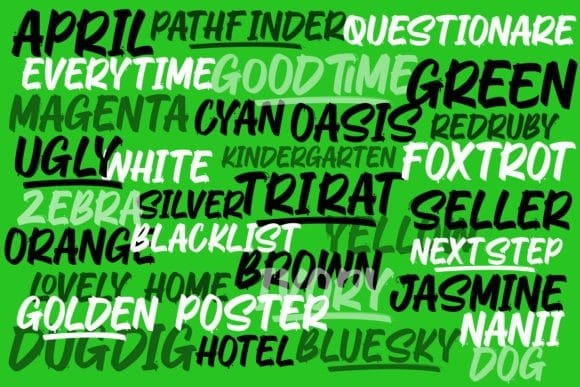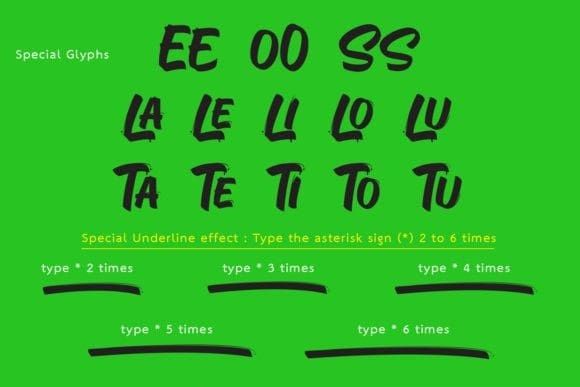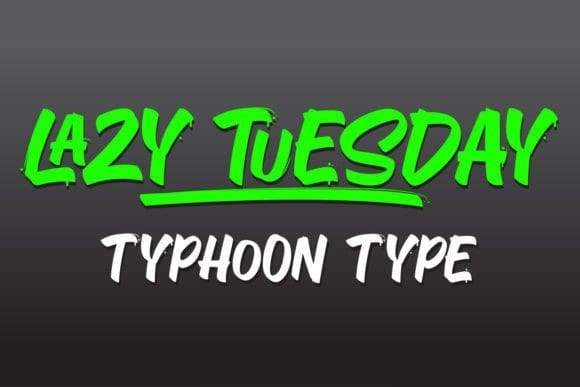
Lazy Tuesday Font
Lazy Tuesday Font is a font that embodies the aesthetics of casual handwriting with a playful twist. It features characters that appear as if they were written with a flat-tipped marker, giving them a smooth and uniform look.
This font incorporates ink droplet embellishments, adding a touch of creativity and whimsy to each character. Additionally, “Lazy Tuesday” includes special characters designed to pique interest and add a unique flair to your text.
To enhance readability and draw attention to important text, the font includes underlined special characters. This combination of design elements makes “Lazy Tuesday” not only easy to read but also visually appealing, making it suitable for various types of advertising and promotional materials.